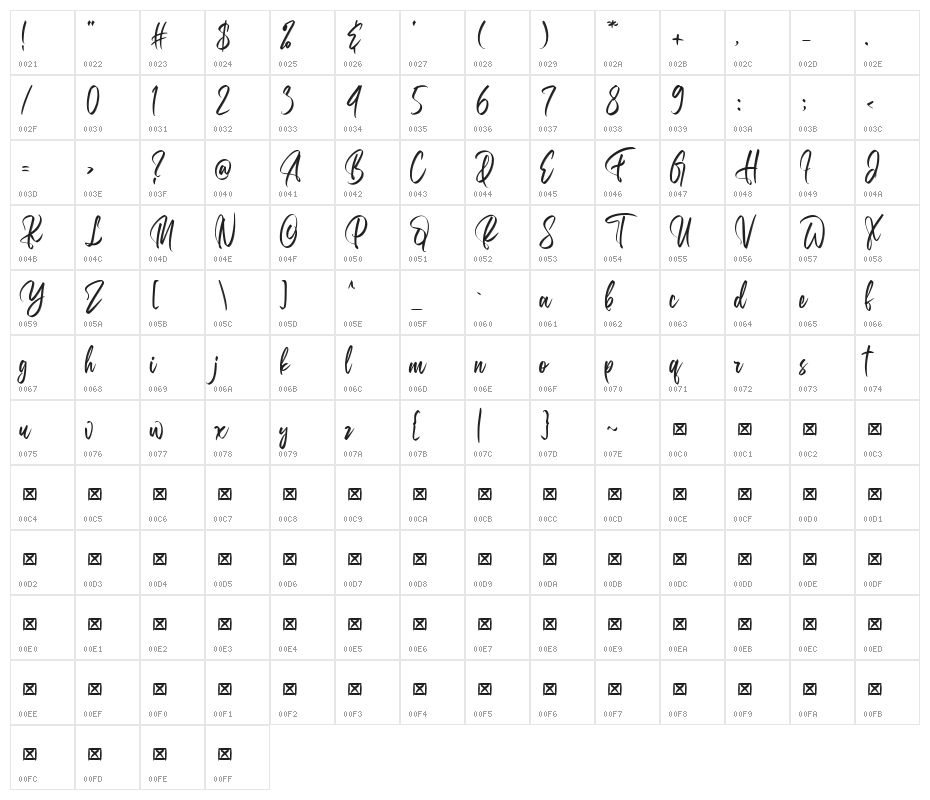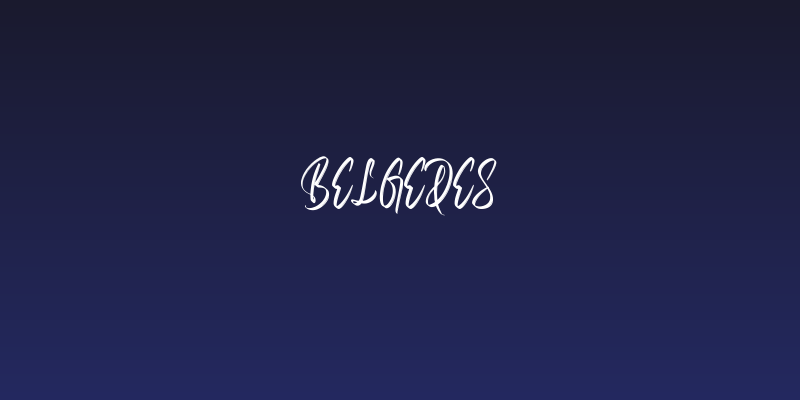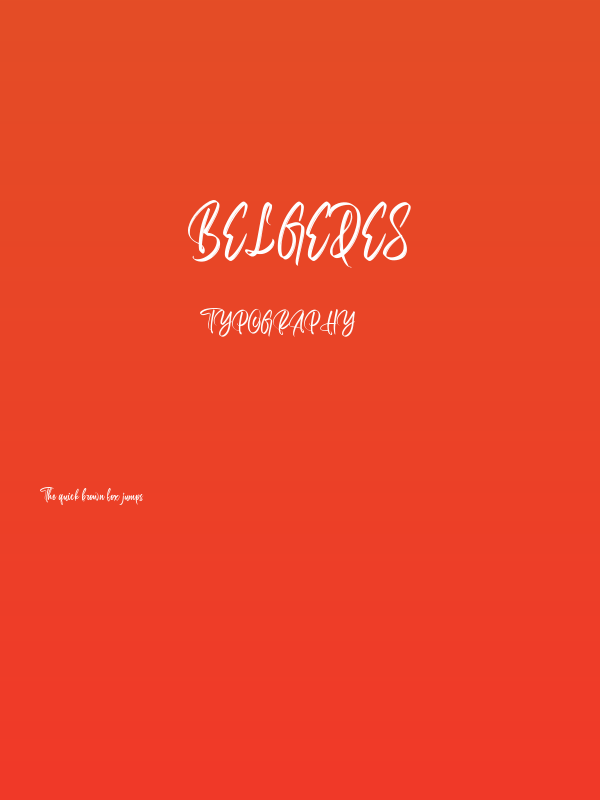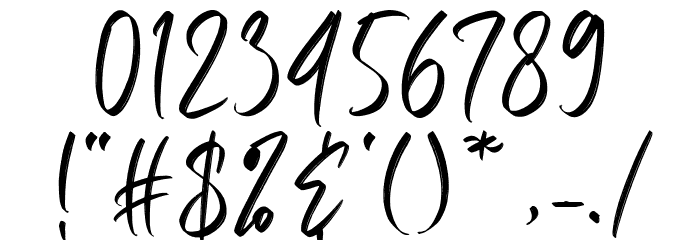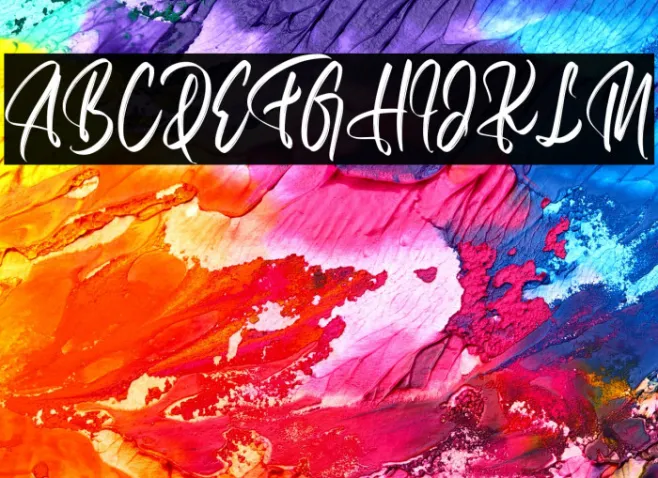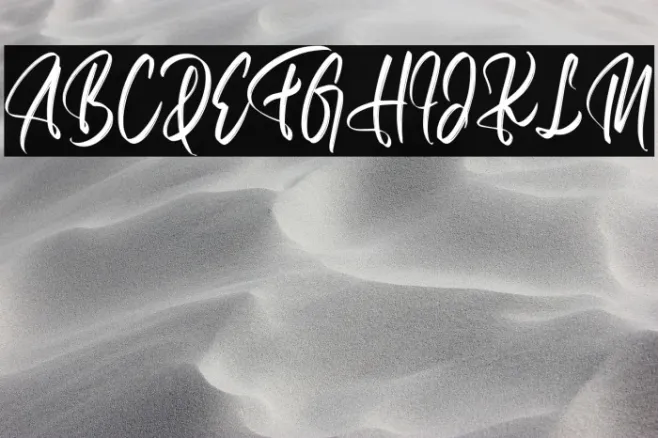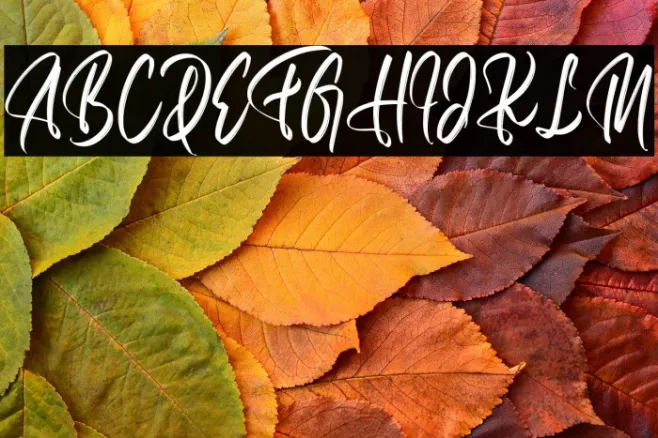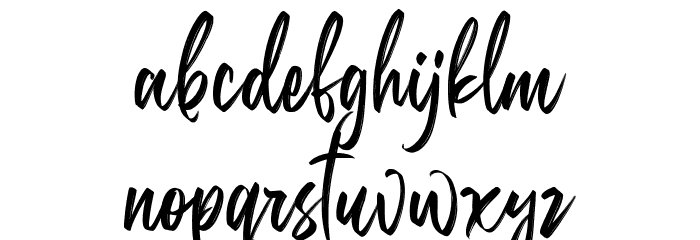
Belgedes Font
Belgedes Description
This font features an elegant and flowing script style, characterized by its smooth, cursive strokes and artistic flair. The uppercase letters are bold and sweeping, with a dynamic rhythm that suggests movement and grace. The lowercase letters maintain a consistent flow, complementing the uppercase with their rounded forms and fluid connections. Numbers and special characters are crafted with the same attention to detail, ensuring a cohesive look across all glyphs. The overall design exudes a sense of sophistication and creativity, making it ideal for projects that require a touch of elegance.
| Overall Style | Elegant, Artistic |
| Proposed Projects | Wedding invitations, branding, greeting cards, and elegant packaging designs. |